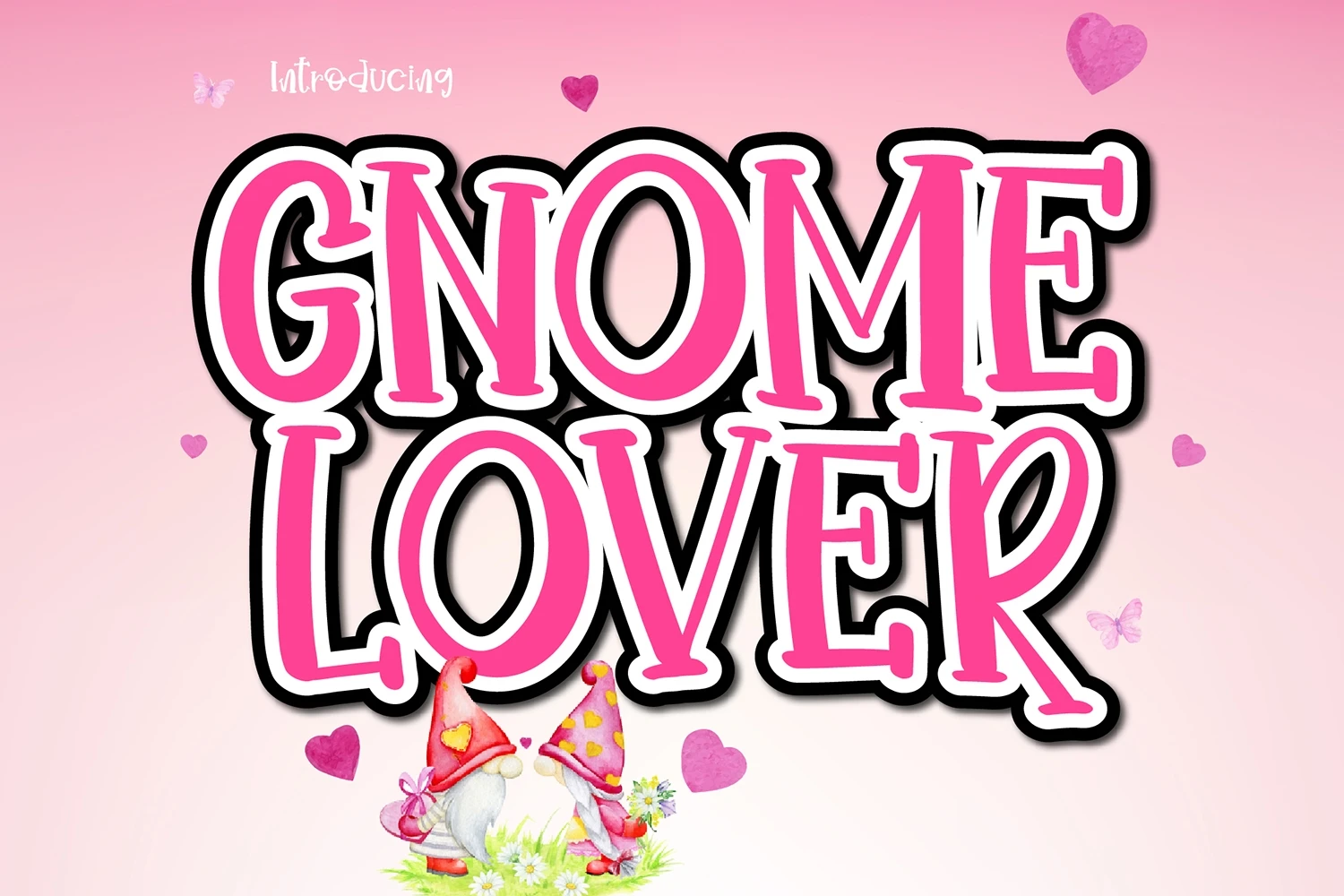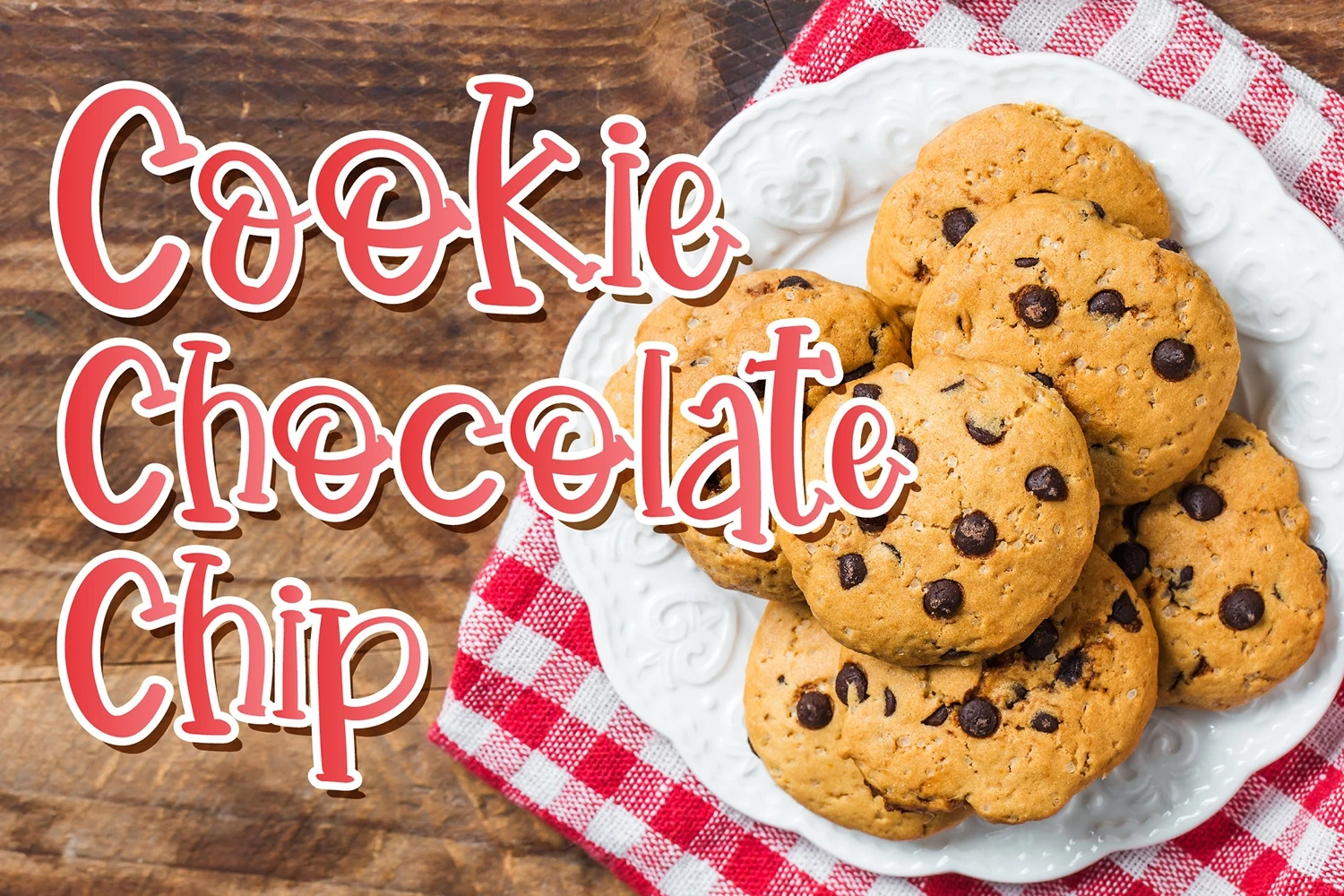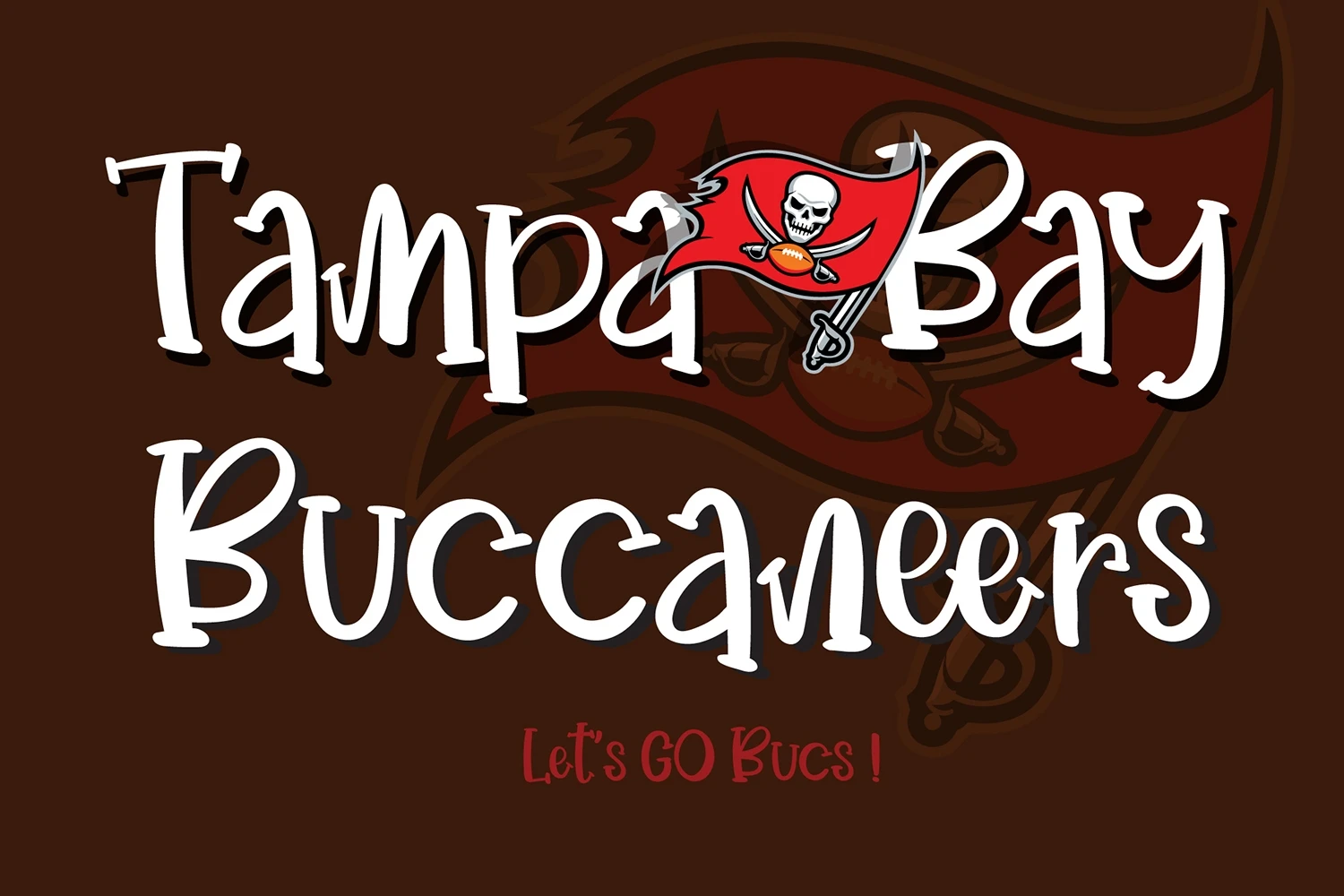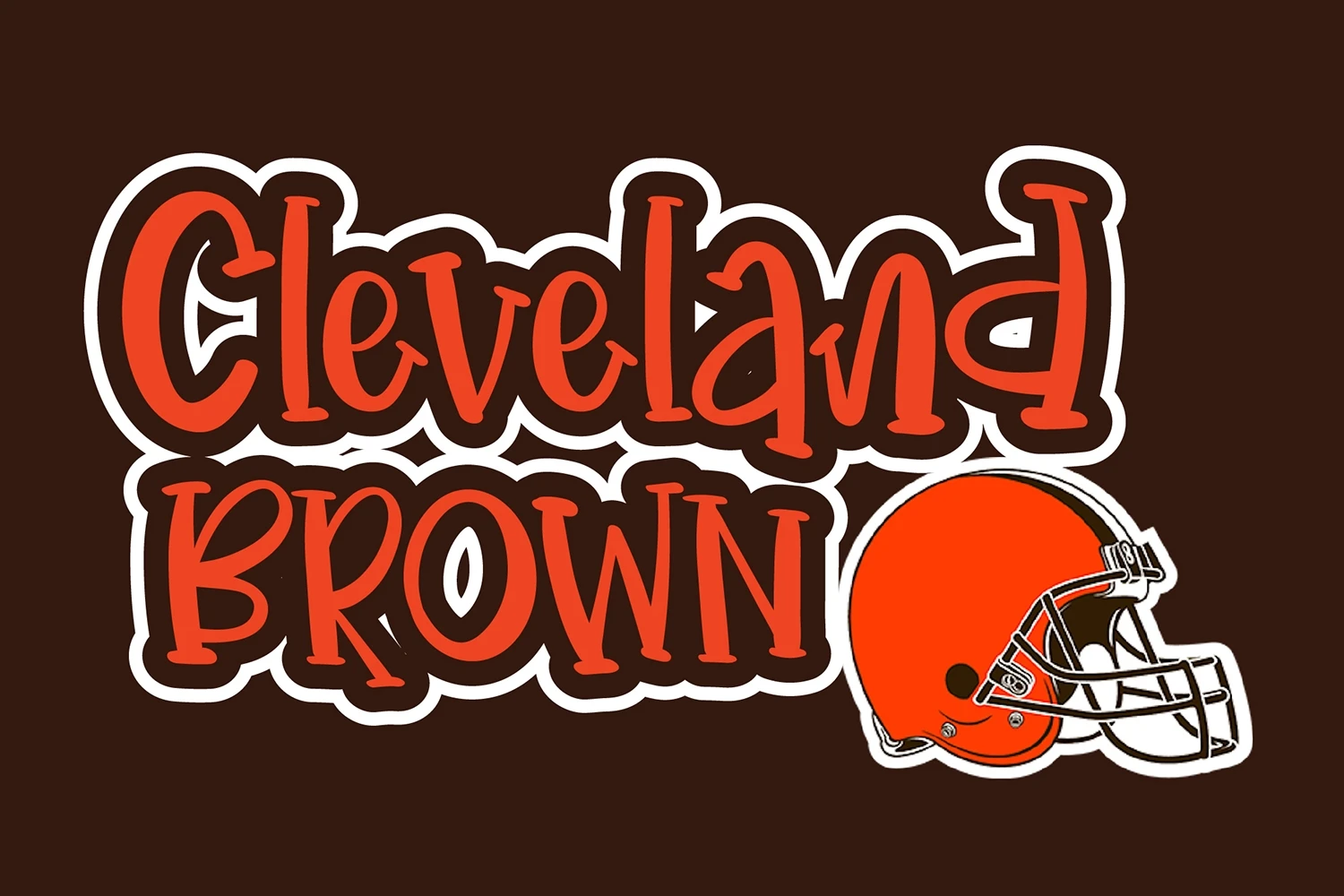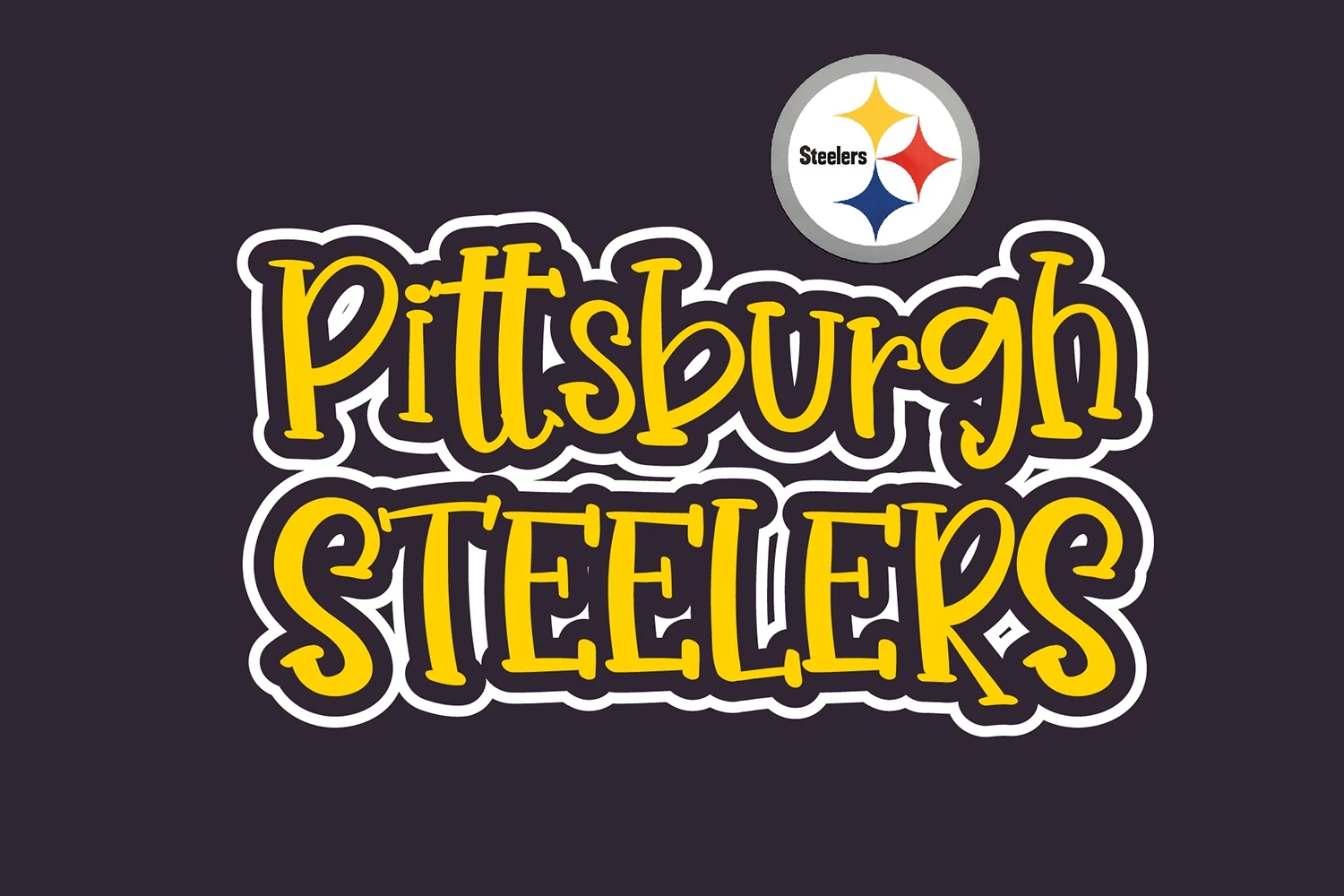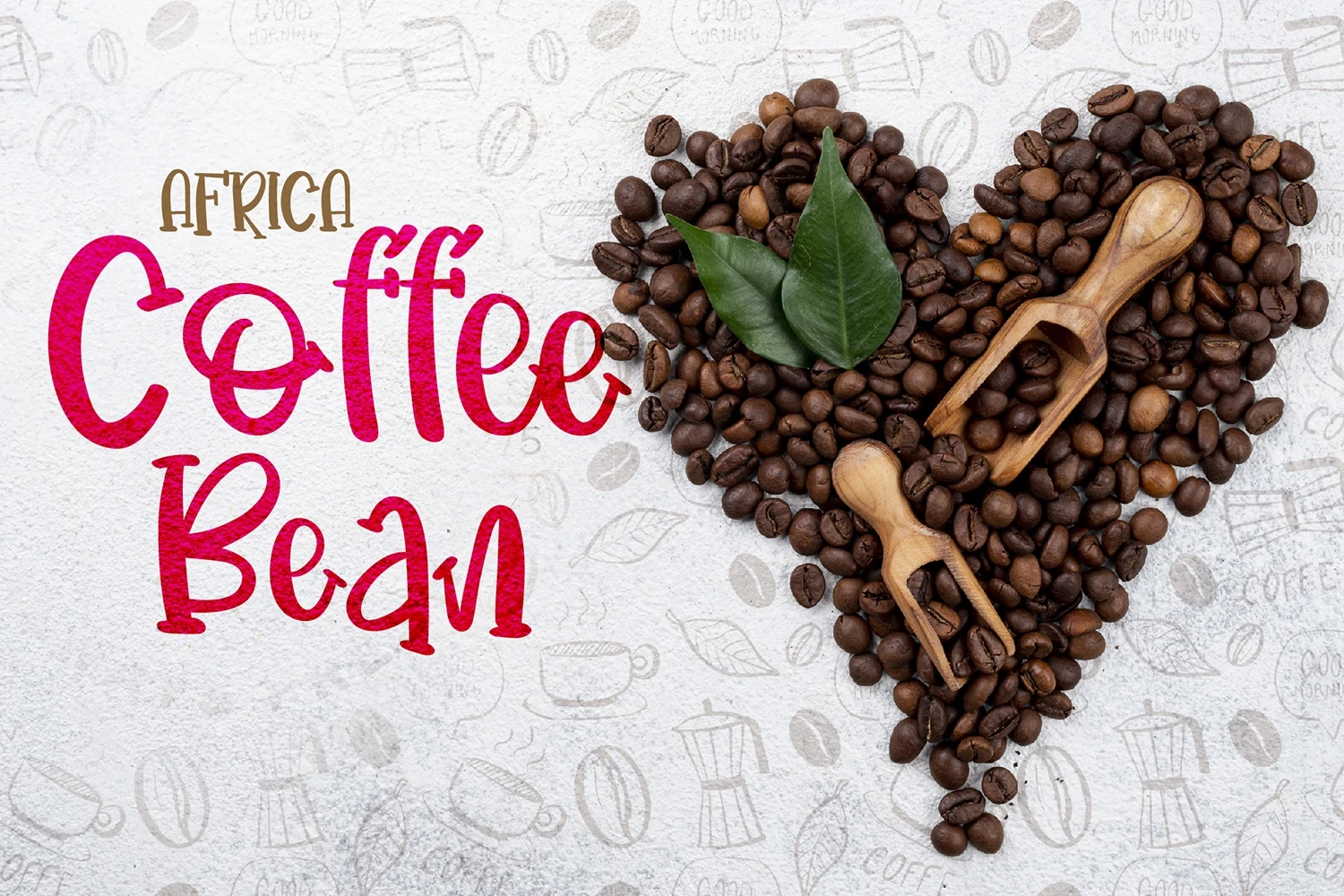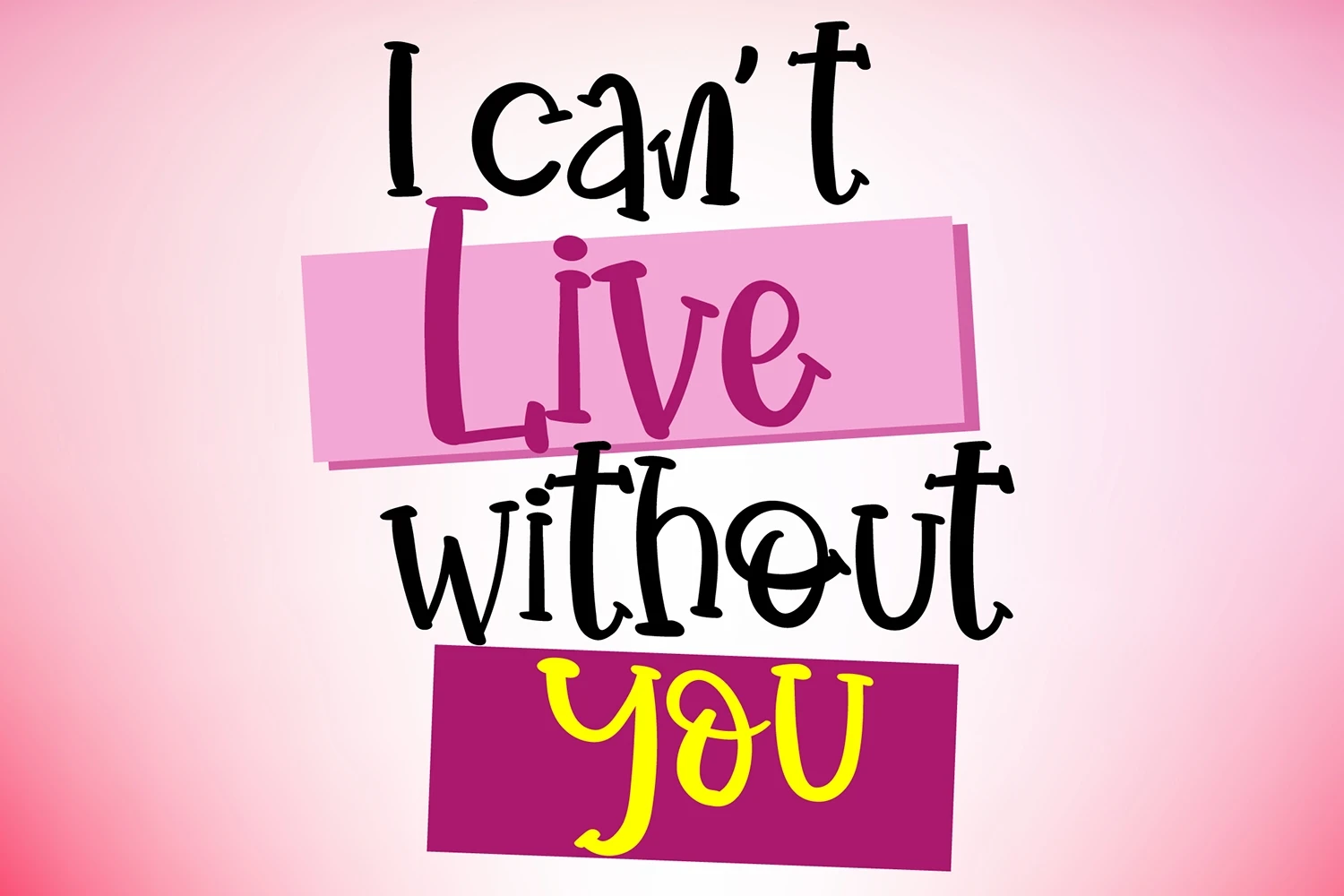
Gnome Lover is a playful display font, with which you can create outstanding and dreamy designs. Fall in love with its charming and radiant style and use it to create gorgeous wedding invitations, beautiful stationary art, eye-catching social media posts, and much more!